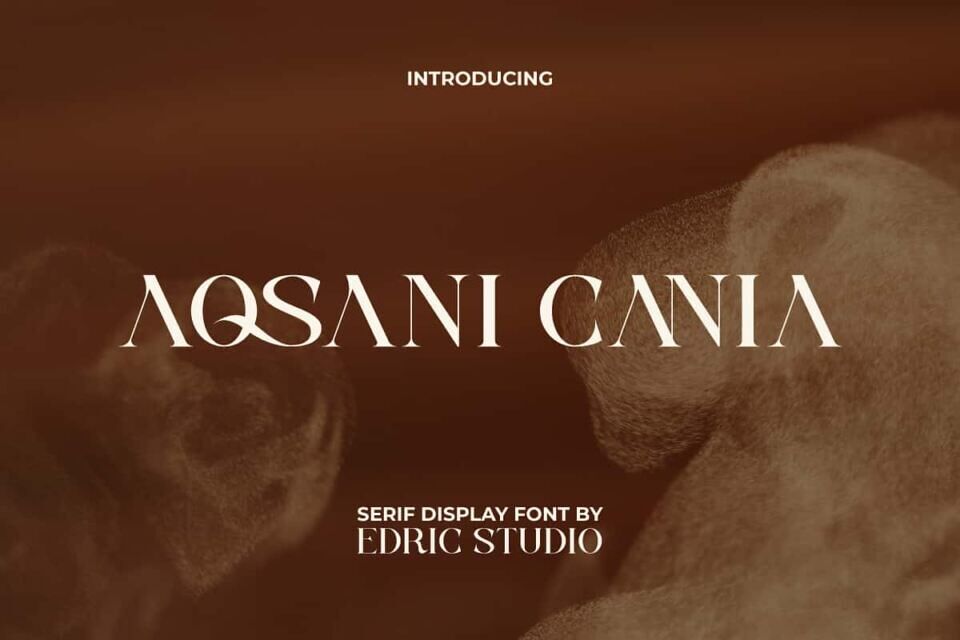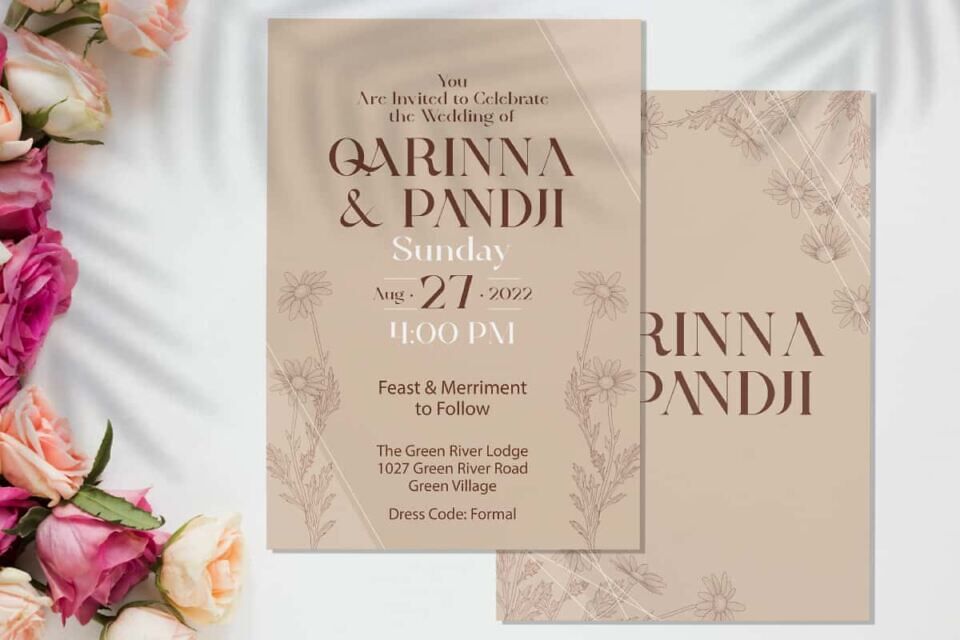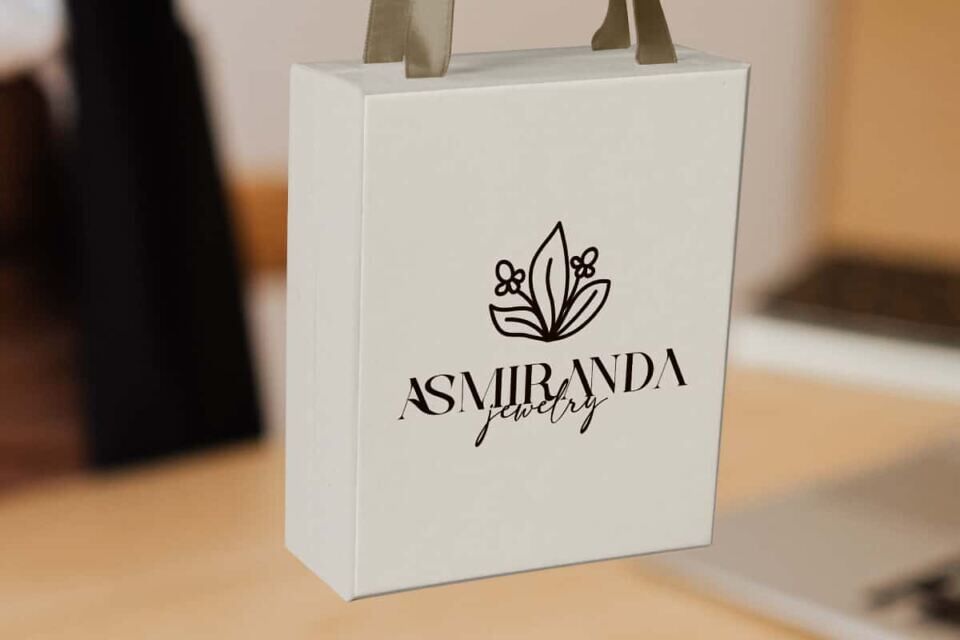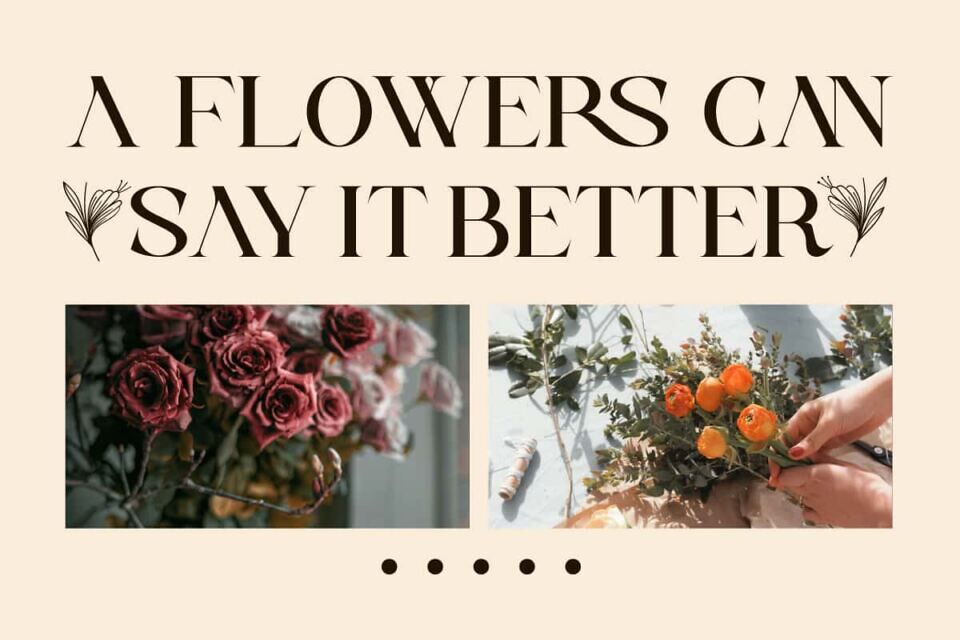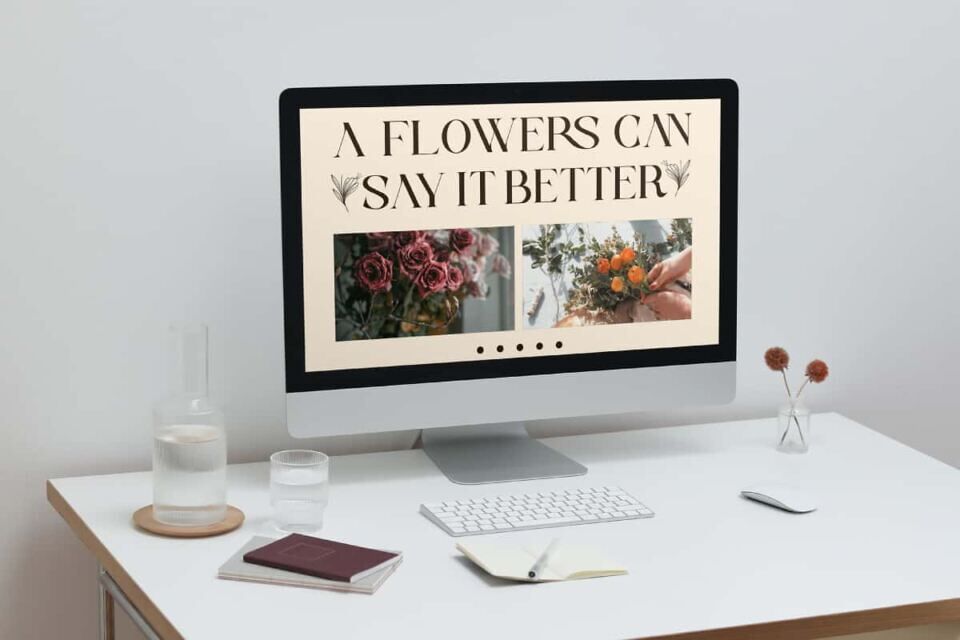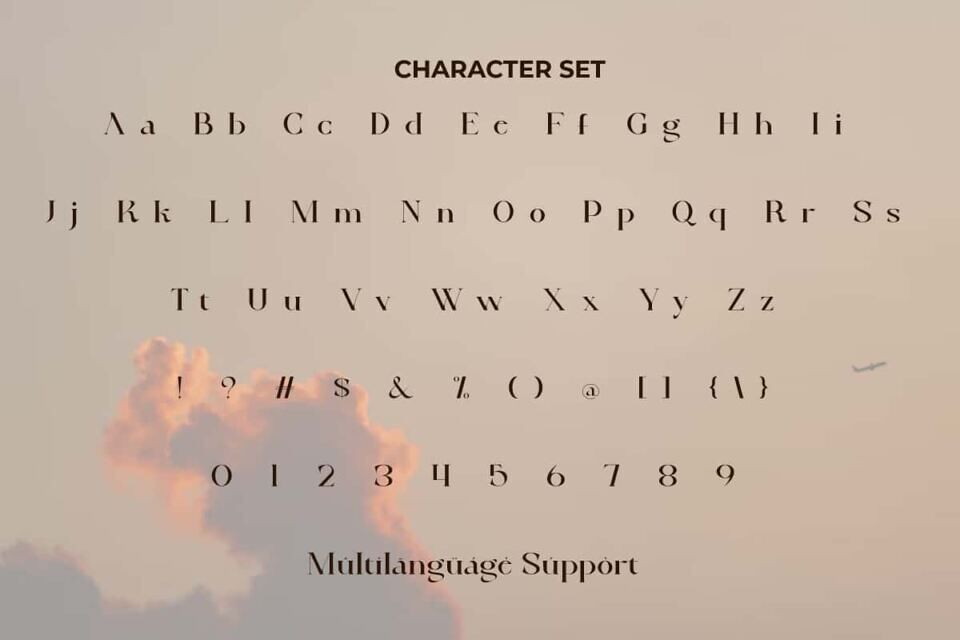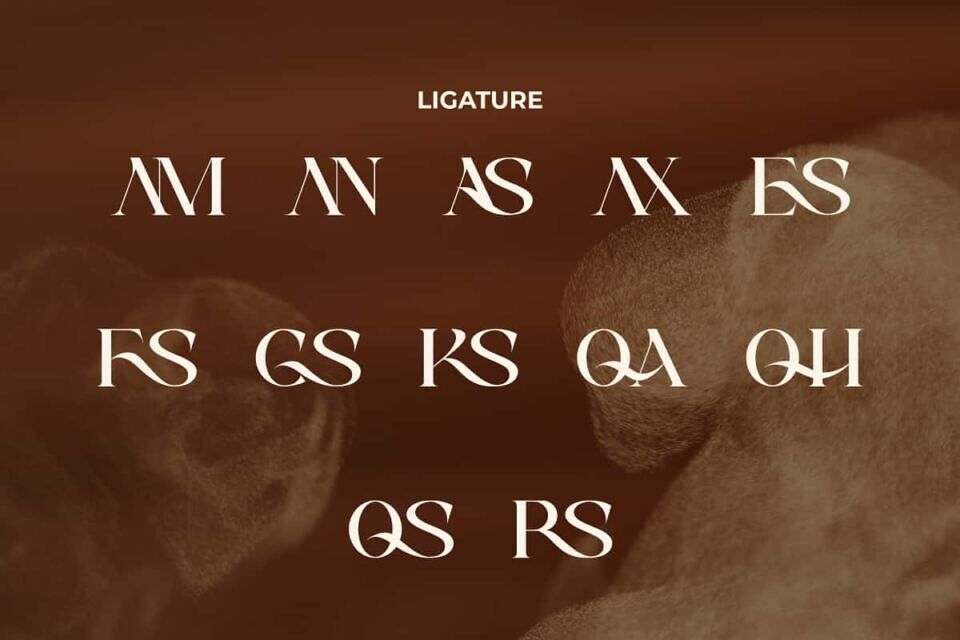
Aqsani Cania Font
Aqsani Cania Font is a beautiful serif display font created by Edric Studio. This font is carefully designed to ensure premium quality and a luxurious feel with the addition of Ligatures making it stand out from the regular typefaces. Perfect for banners, blogs, brochure, card design, headers, invitation, jewelry, label, logos, menu, mockup, product packaging, quotes, template, title, website, and more.
Aqsani Cania Font comes with a complete set of Uppercase and Lowercase Letters, Numbers, Punctuation, Symbols and Ligature. This font combines the characteristics of a sleek and exotic serif font that is beautifully crafted and will stun in any design. Perfect for advertising, florist, graphic design, jewelry store, printing, publishing, restaurant, travel, wedding, and much more.